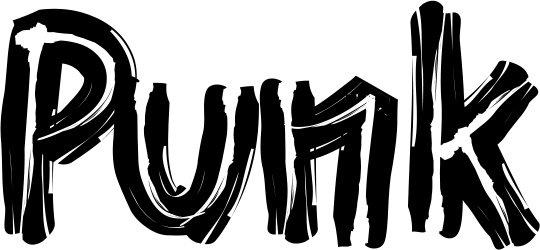
Punk Font
Punk font is one of the punk fonts with a unique and favorite type of charm and different styles. This horror font has crazy ink lines that can be extremely attractive in street designs and layouts on T-shirts. We recommend using this nice font in the design of notebooks and Halloween posters because it will be terrific and audience-friendly.